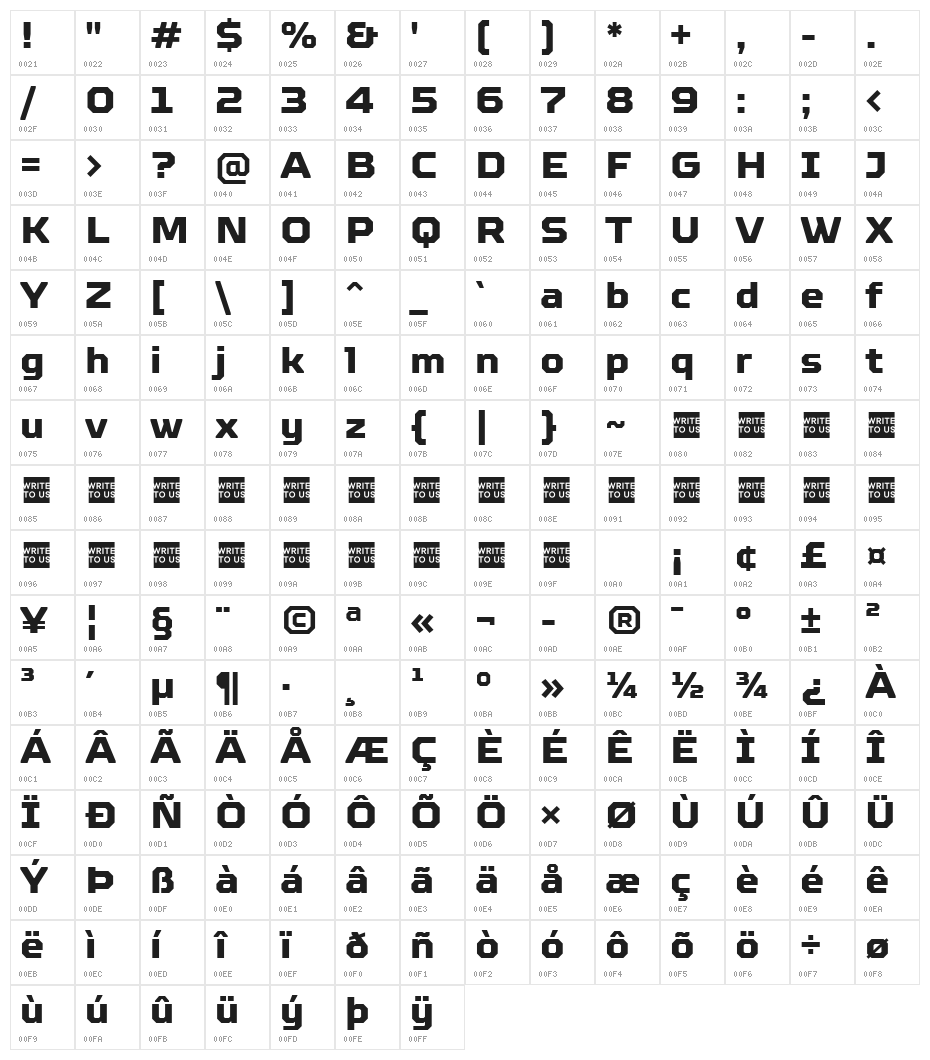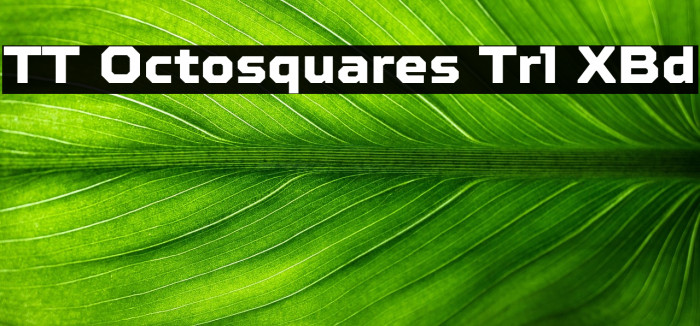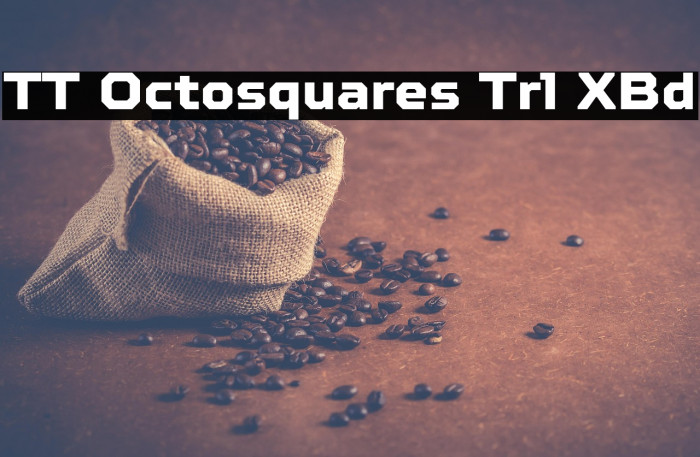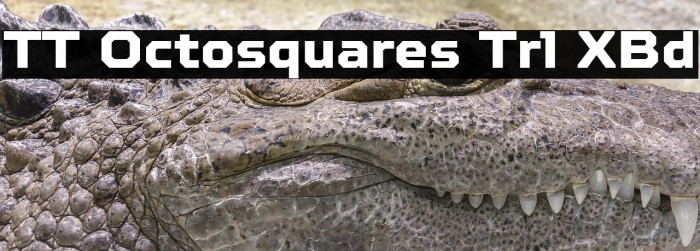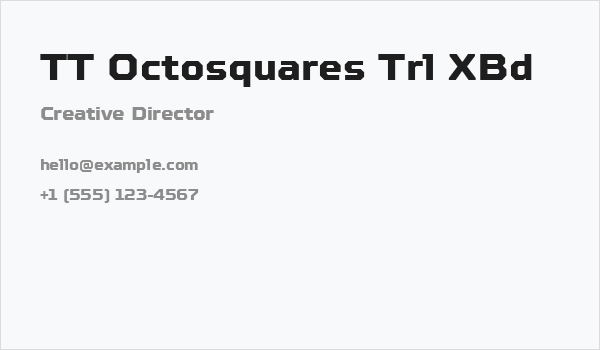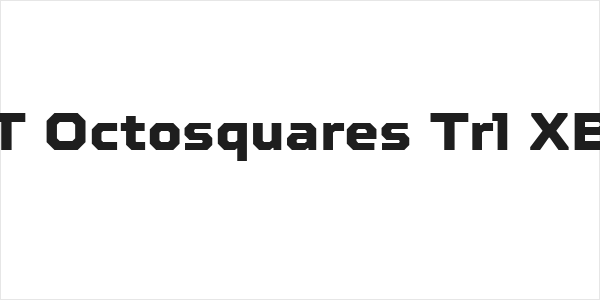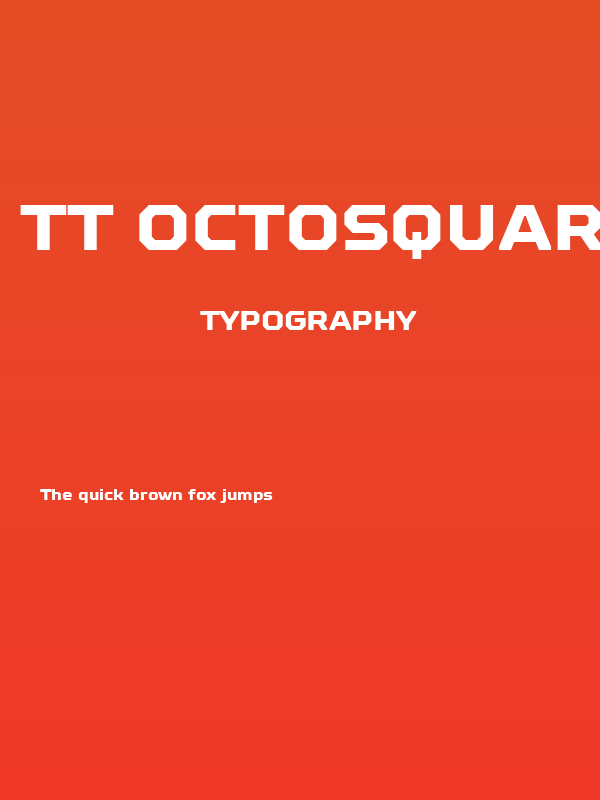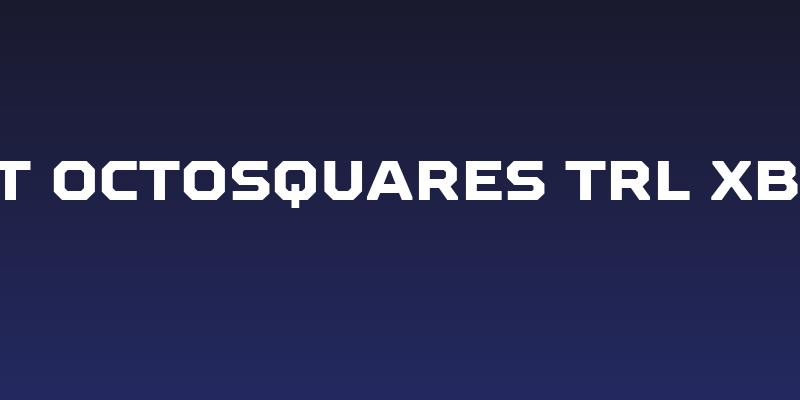
TT Octosquares Trl XBd Font
TT Octosquares Trl XBd Description
This font features a bold and geometric design with a distinct blocky appearance. The characters are constructed with sharp angles and straight lines, giving it a modern and futuristic feel. The uppercase and lowercase letters maintain a consistent style, with the lowercase being slightly more compact. Numbers and special characters follow the same angular design, ensuring uniformity across all glyphs. The font's strong presence makes it ideal for attention-grabbing headlines and titles.
| Proposed Projects | Ideal for branding, posters, video game graphics, and tech-related projects. |